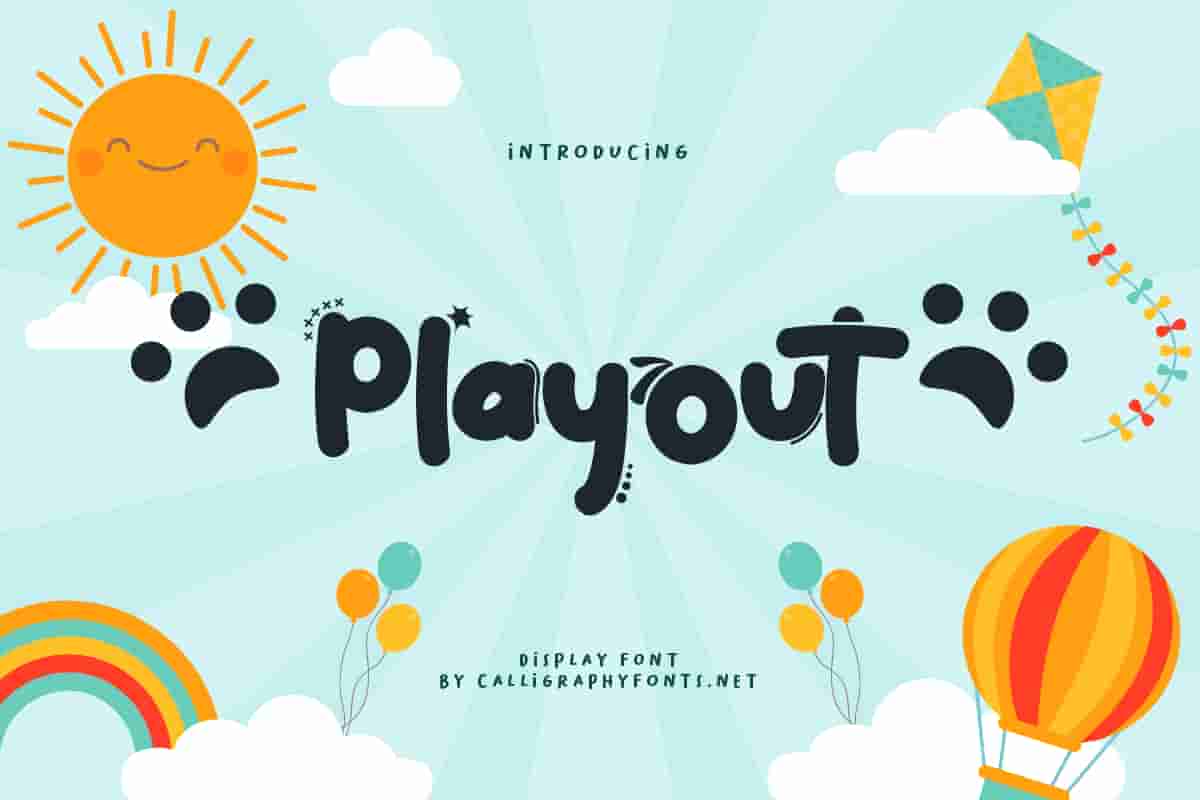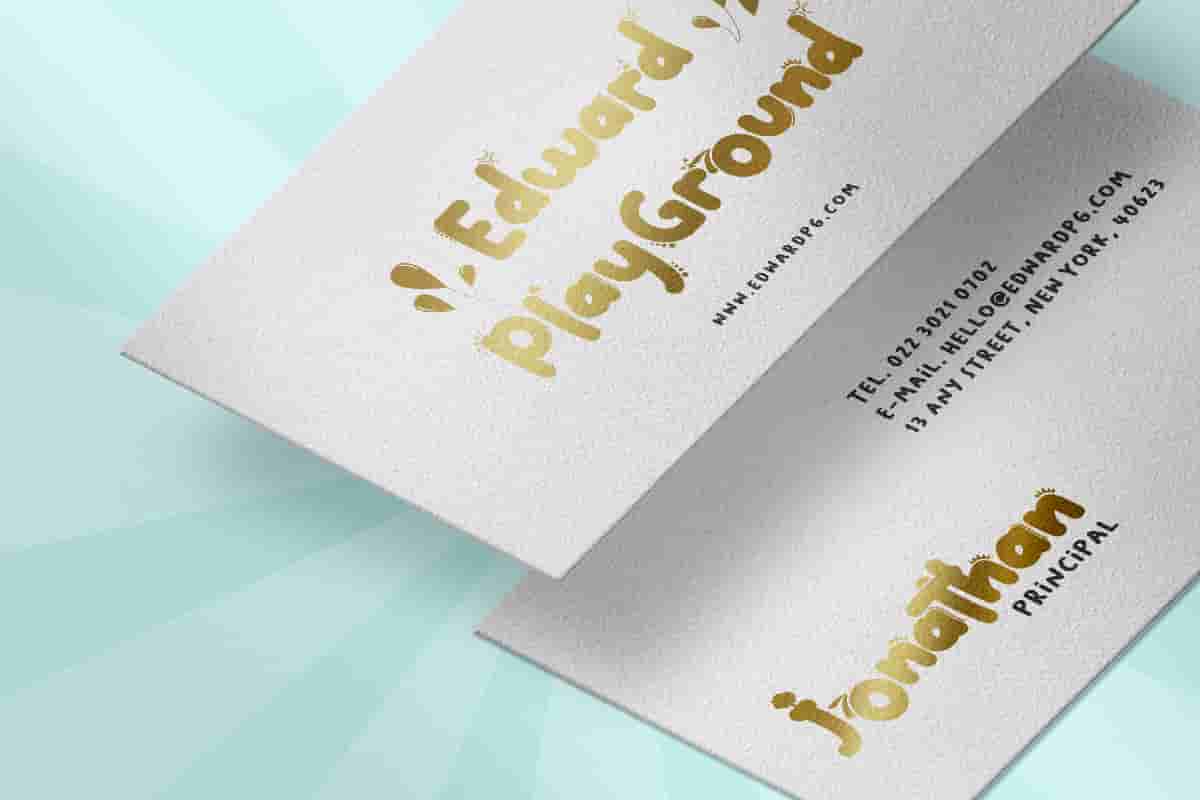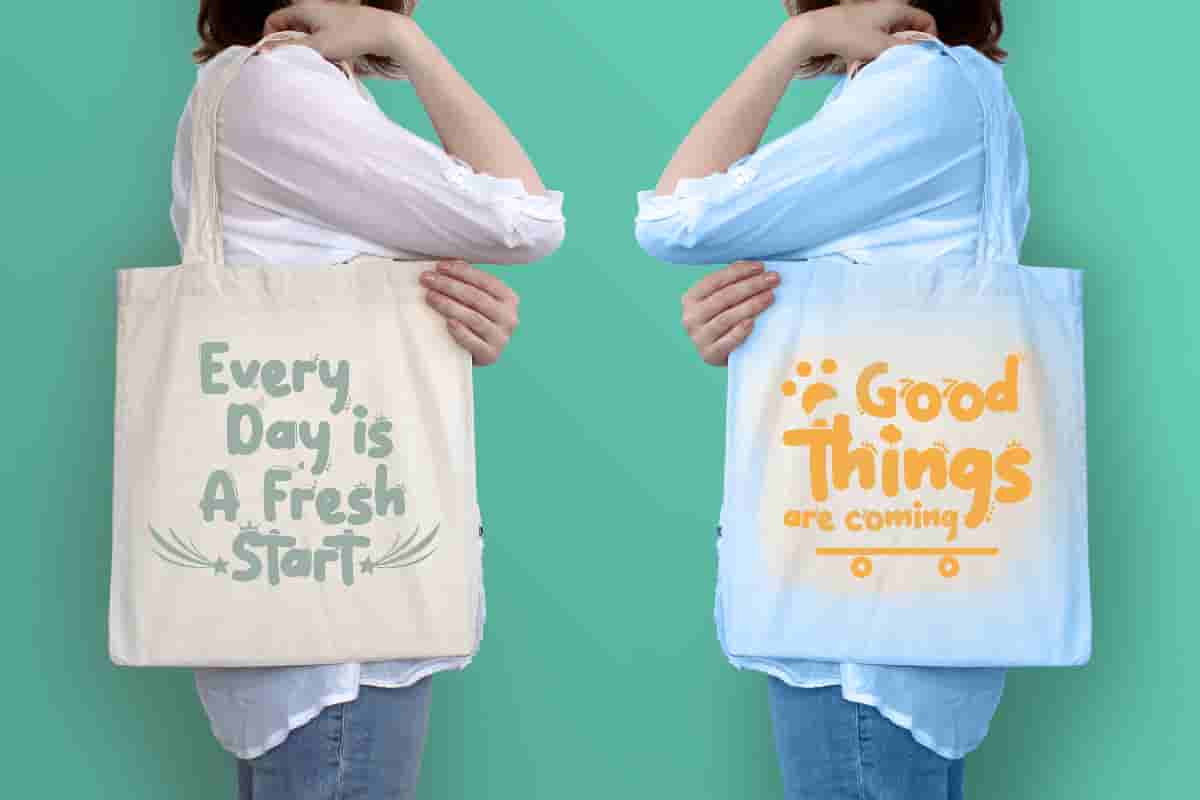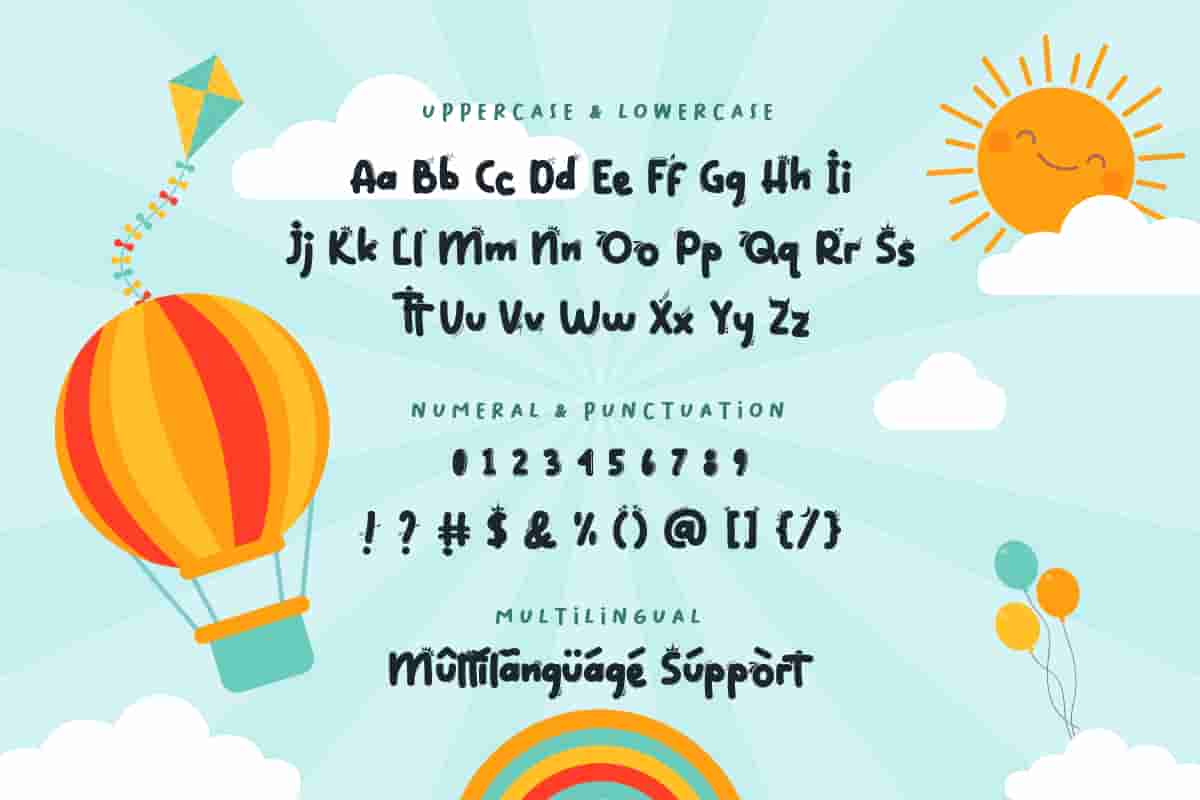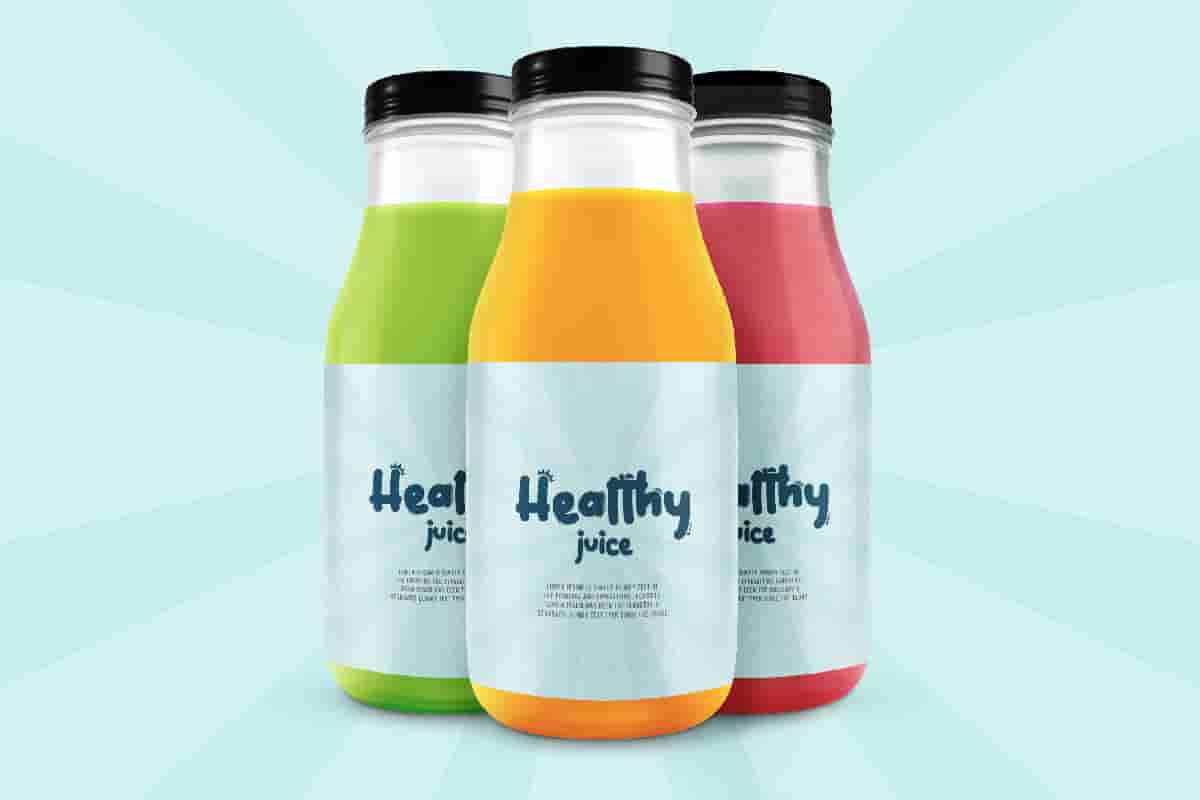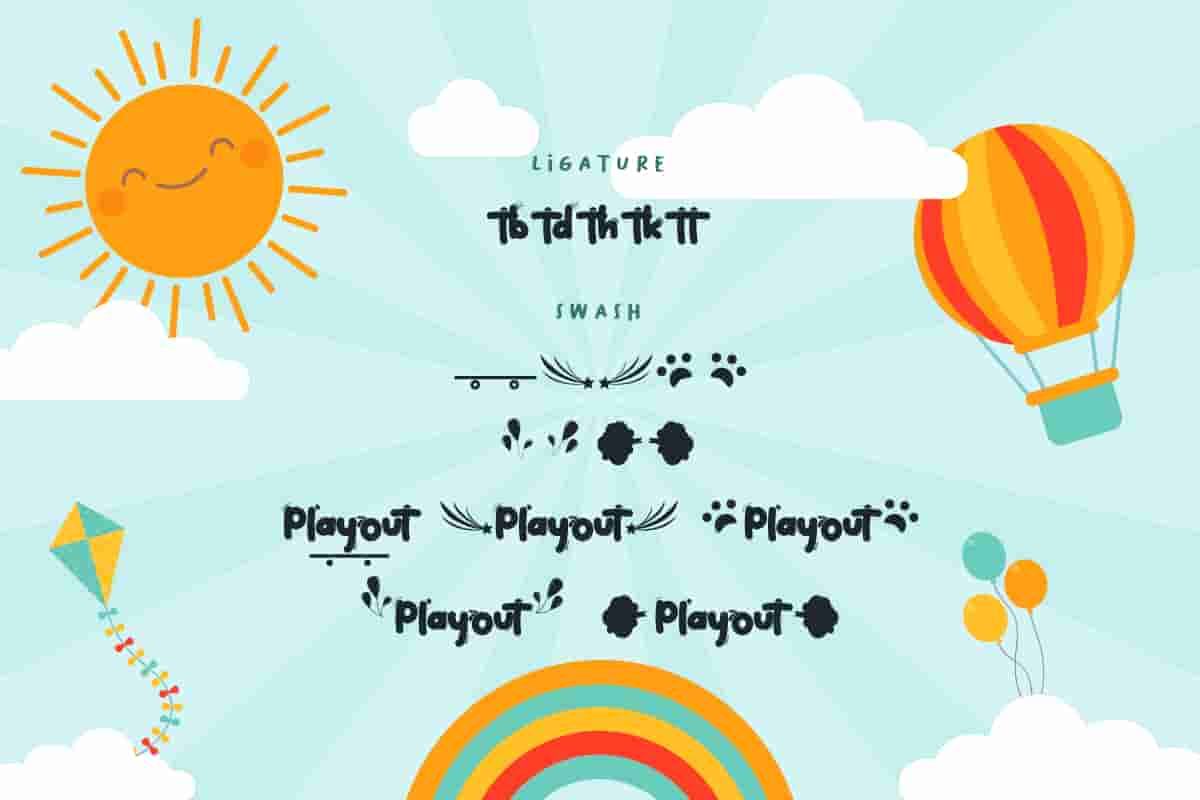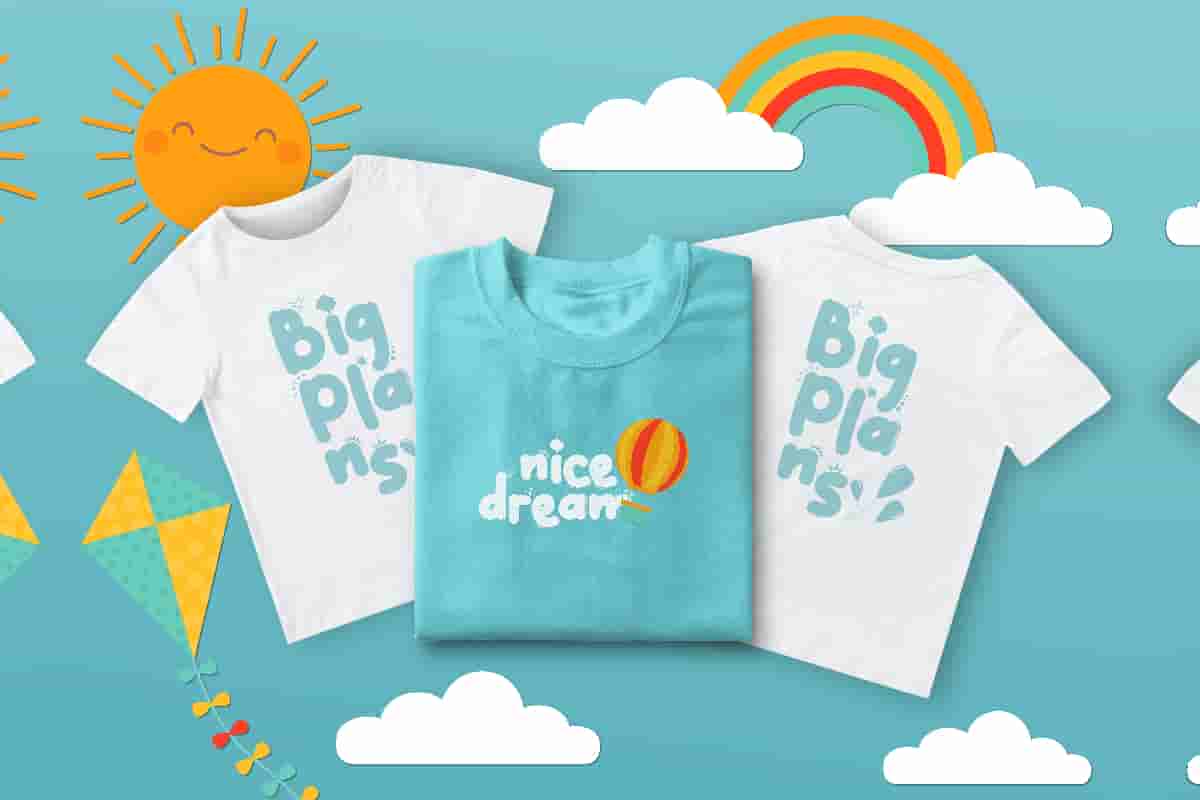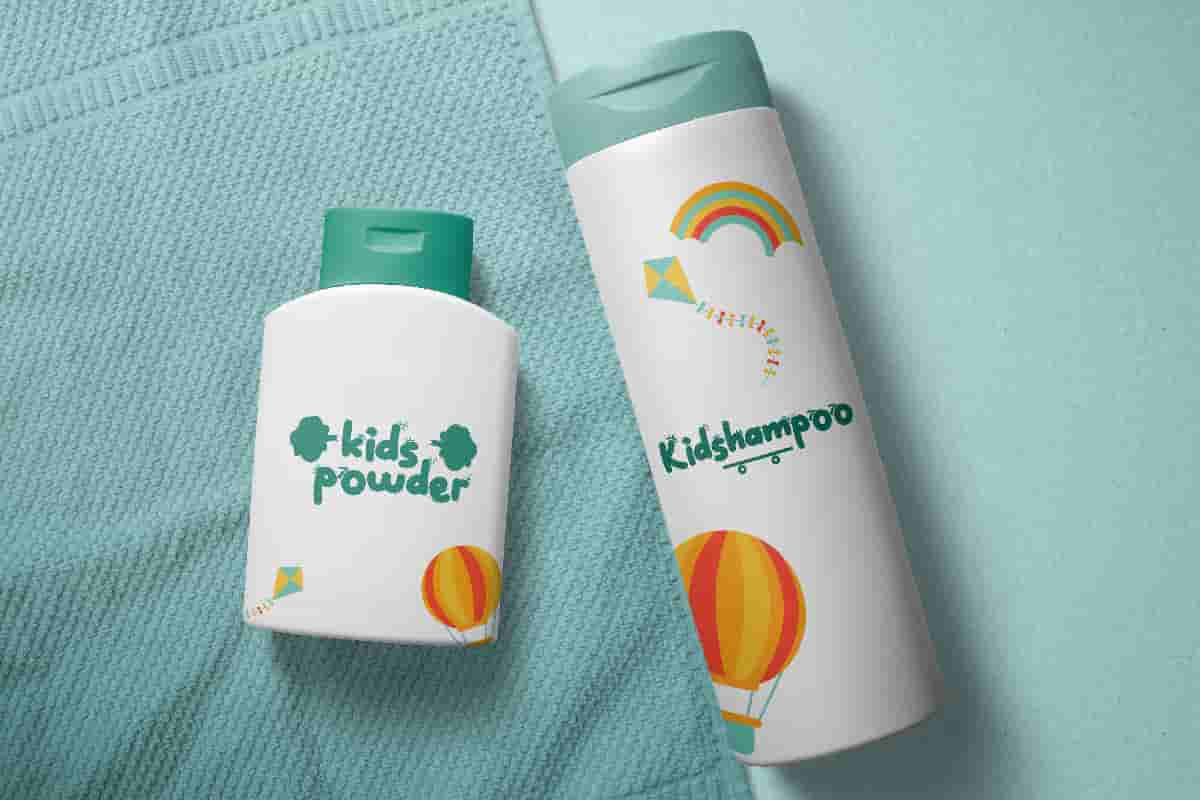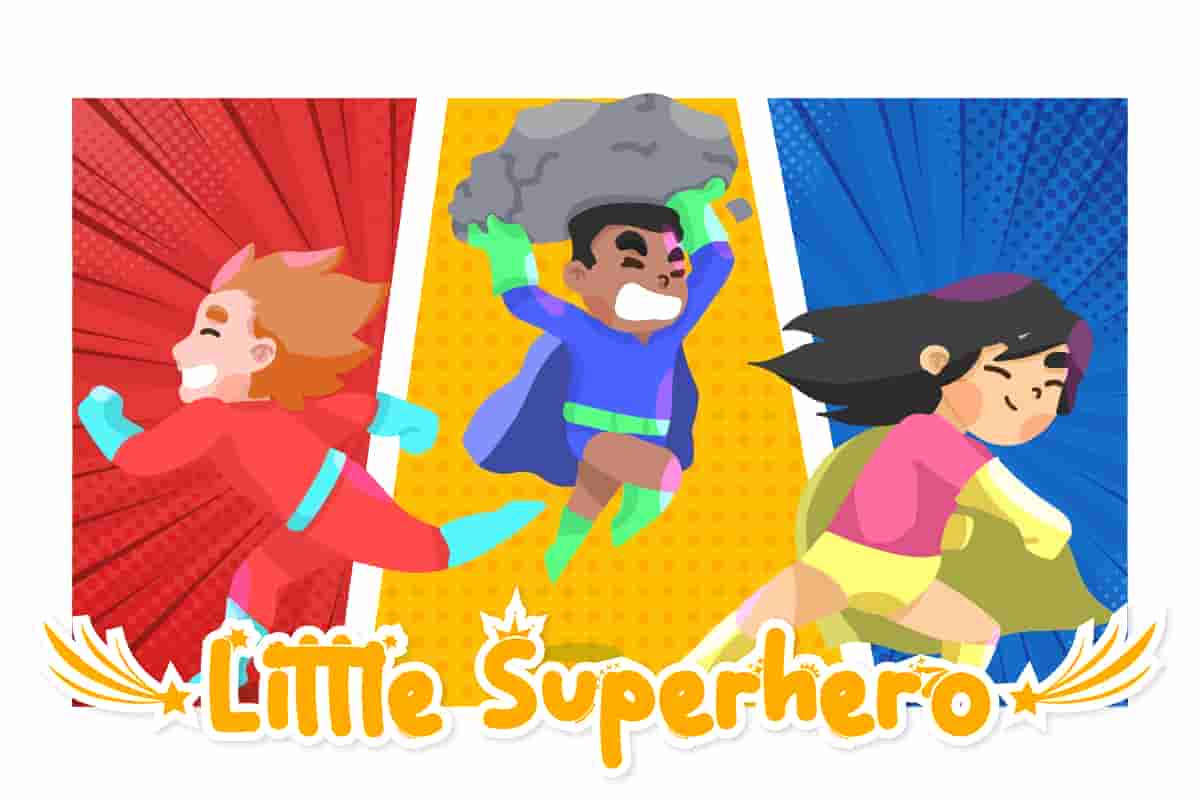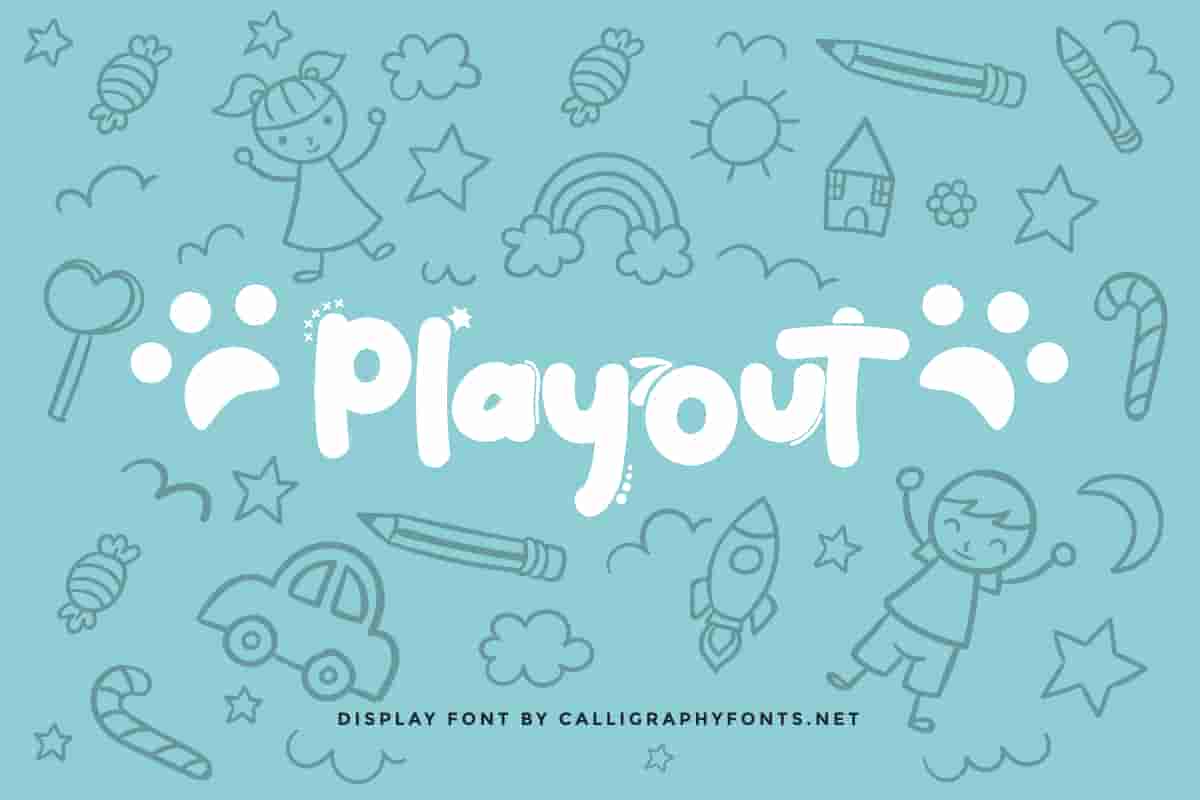
Playout Handwriting Font
Playout Font is funny amazing handwriting font by CalligraphyFonts.net. It has great characters that will be awesome for branding, poster, invitation, flyer etc
Playout Font is a fun Handwriting font with children and cartoon theme style. The font will be awesome for brands, packaging, invitation, games. etc. Playout Font will suit many industries and categories related to kids, humor, family etc. It will work well for books, packaging, toys, homewares etc.